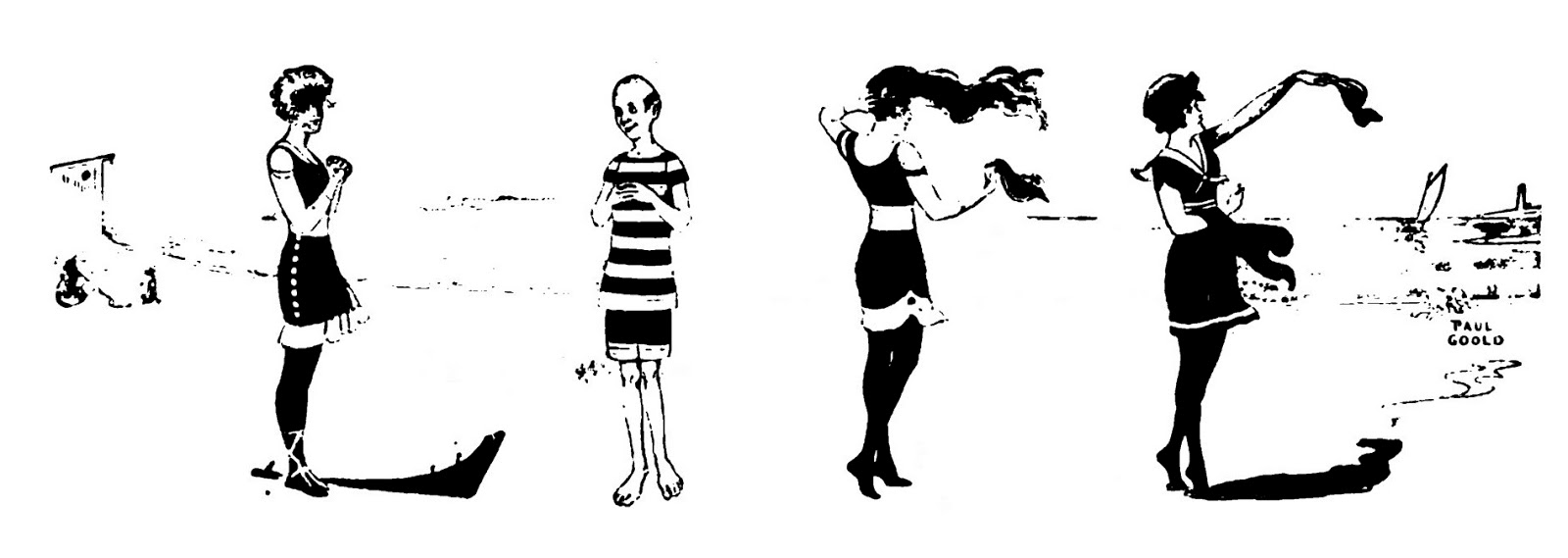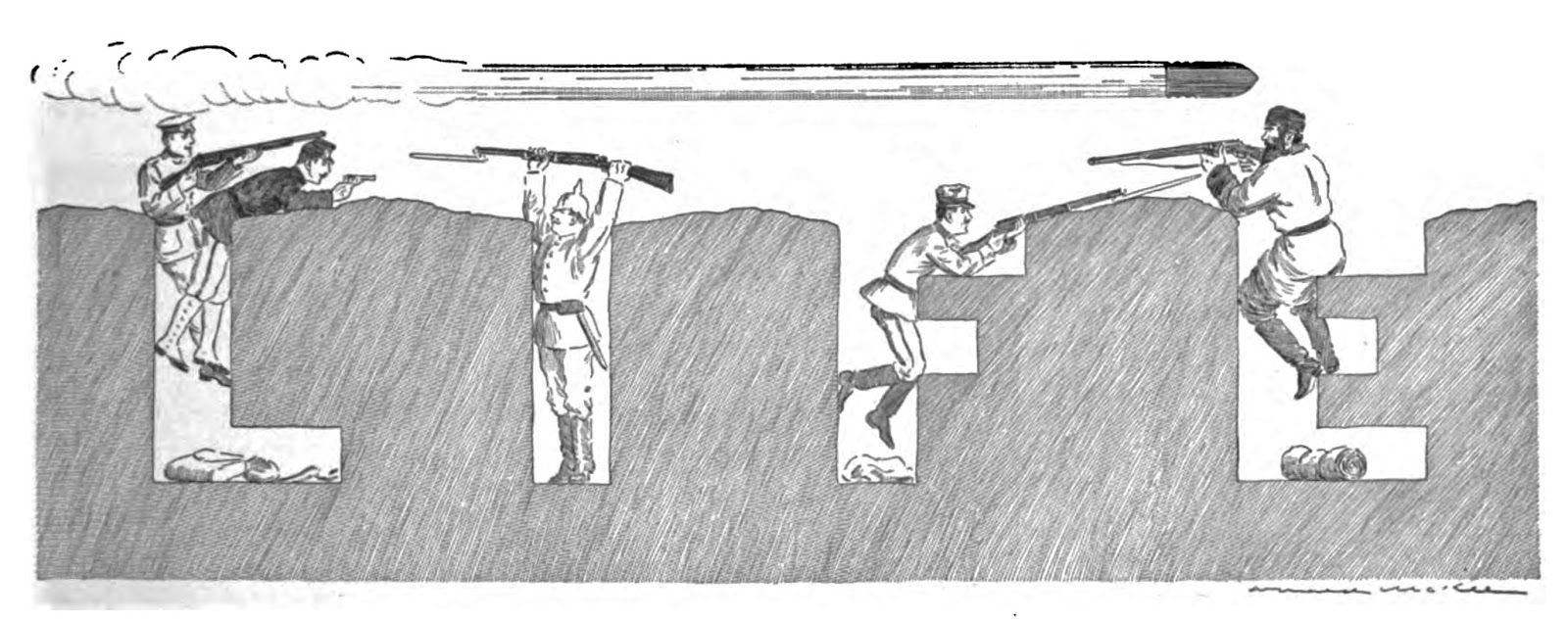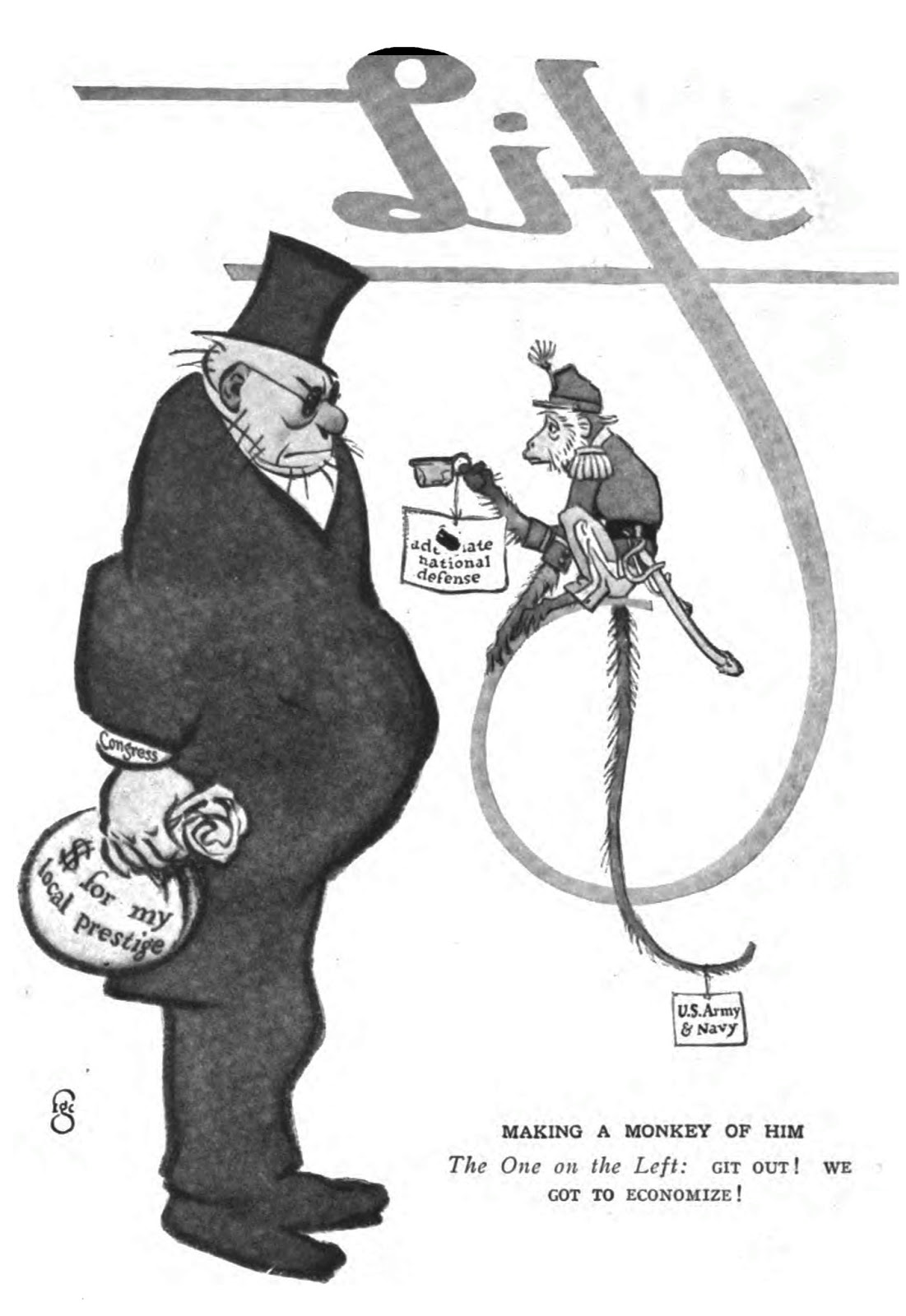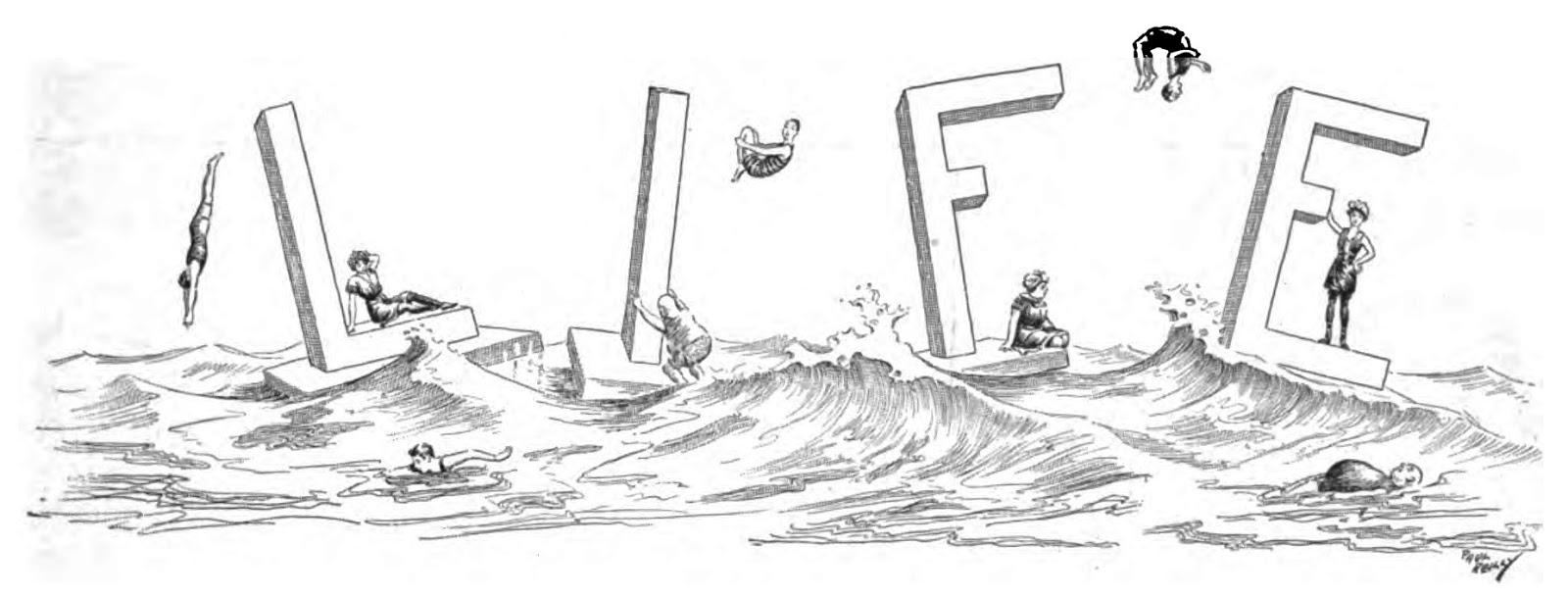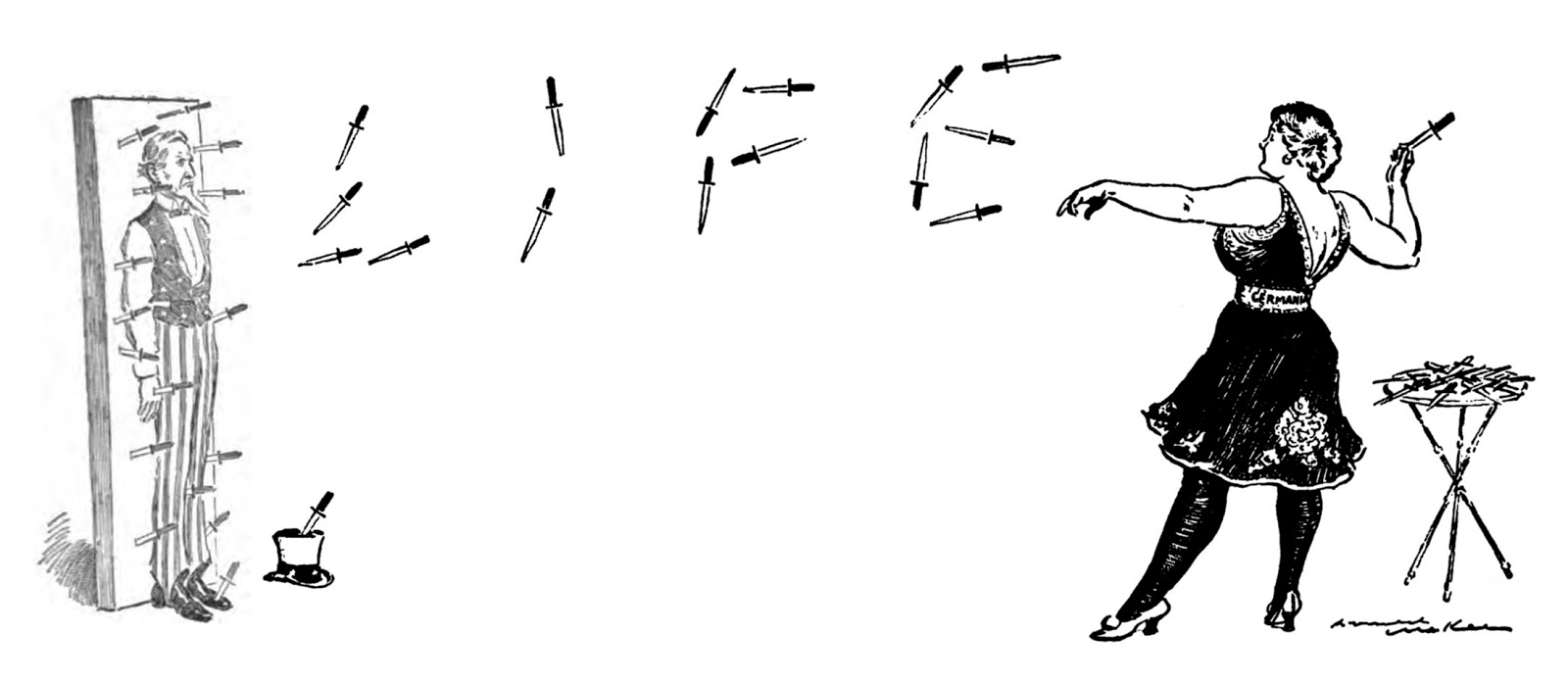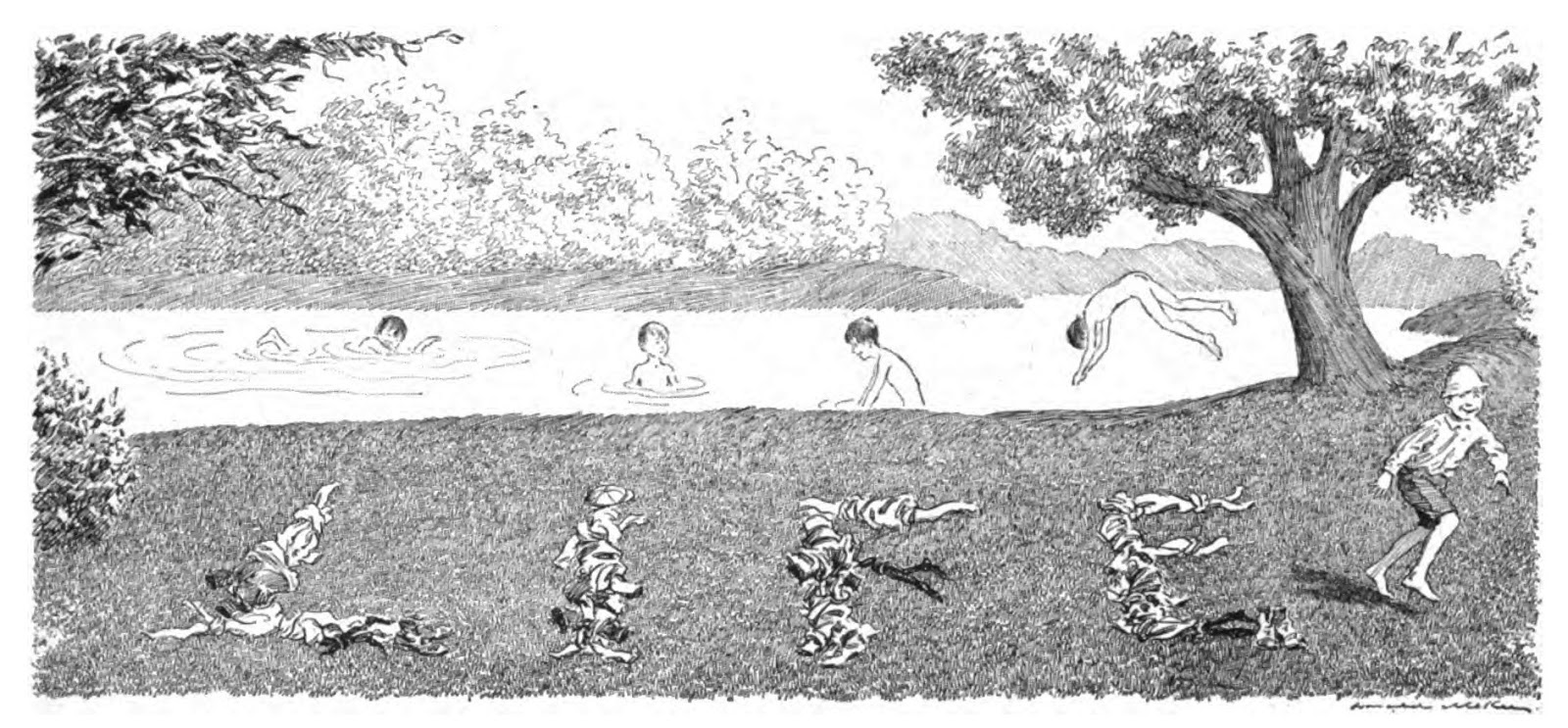
Comics: Marjorie Wilkes Huntley
In Wonder Woman: The Complete History (Chronicle Books, 2000), from chapter two, “The Amazon”, Les Daniels wrote:
The youngest of the [Marston] children, Olive, remembers Harry Peter’s kindness. “I was small. Harry was a very gentle man. He would put me on a stool and ask me to be quiet, and I could watch him draw,” she said. “I was a very good kid because I was so amazed. It was very impressive.” Olive was taken to the office by another member of “this Wonder Woman network,” Marjorie Wilkes. “She was one of Mom’s dearest friends, and she lost her husband to the influenza, and so she came to live with us also,” Olive explained. “I think that the gut work was done between Marjorie and Dad, because she was the one who helped name her Wonder Woman. She used to do a lot of the lettering, and when he wrote the scripts she would be the one to type them up. She was a good lady.”
In The Secret History of Wonder Woman (Knopf, 2014), from chapter seven, “Machine Detects Liars, Traps Crooks”, Jill Lepore wrote:
“No one knows more about the production of Wonder Woman than Marjorie W. Huntley,” Holloway liked to say. In the 1940s, Huntley helped out with the inking and lettering of Wonder Woman, including panel after panel depicting women shackled, hands and feet. “How can she run with that ball and chains?” one of Wonder Woman’s captors cries out. Huntley was schooled in suffrage, but she believed, too, in what she called “love binding”; the importance of being tied and chained. She also believed in extra-body consciousness, vibrations, reincarnation, and the psychic nature of orgasm.
A Leroy lettering guide was used for the lettering*.
Below is some biographical information about Marjorie Wilkes who was born December 29, 1889, in Atlanta, Georgia.
The certificate information is at Ancestry.com. The certificate transcription says Laurence with a “u”. In the American Library Association Handbook and Who’s Who in Library Service (farther down) the spelling is “Lawrence”. In her book, Lepore did not state Huntley’s first name and date of the marriage. She also said Marjorie left her husband in 1914. In Daniel’s book, Olive Marston said Marjorie’s husband died of influenza, and Who’s Who said he was deceased.
“The Comics”
By Sgt. Sanderson Vanderbilt
Back cover cartoon by Harvey Kurtzman
who had two more cartoons published in Yank.
Lettering: Life Drawings
Illustrations from Life magazine